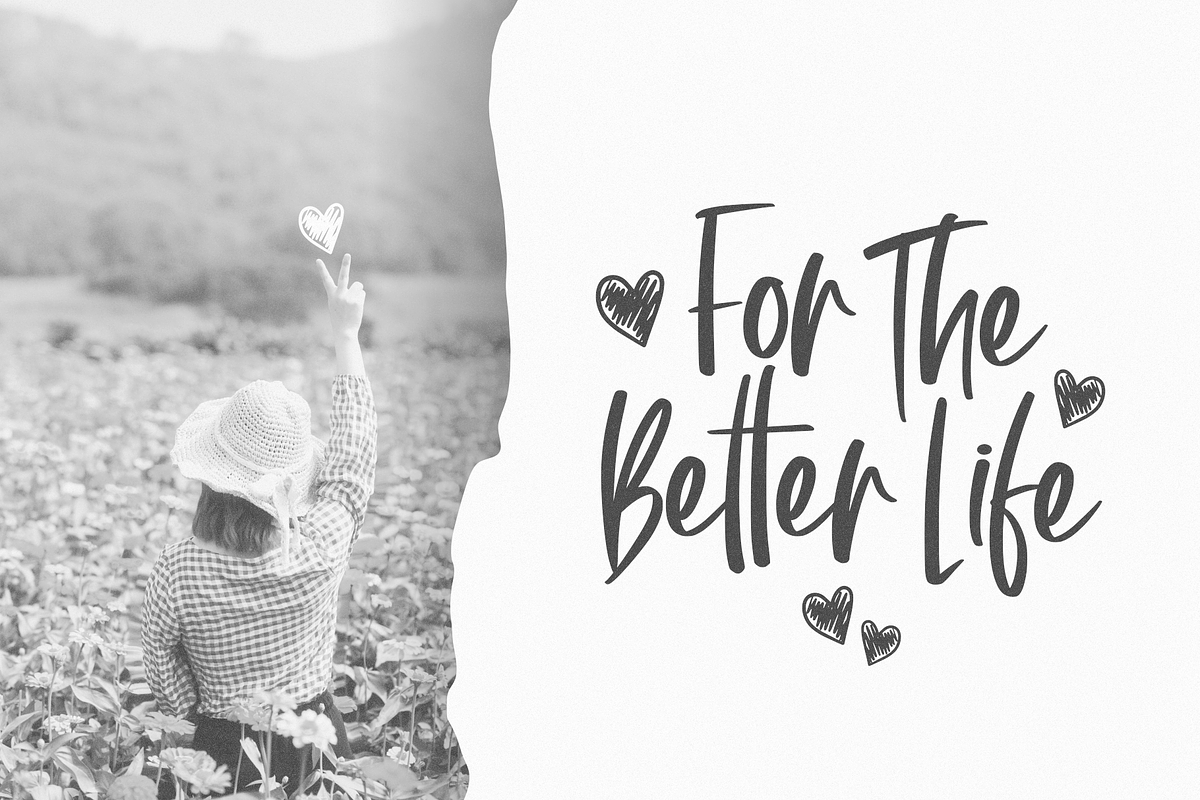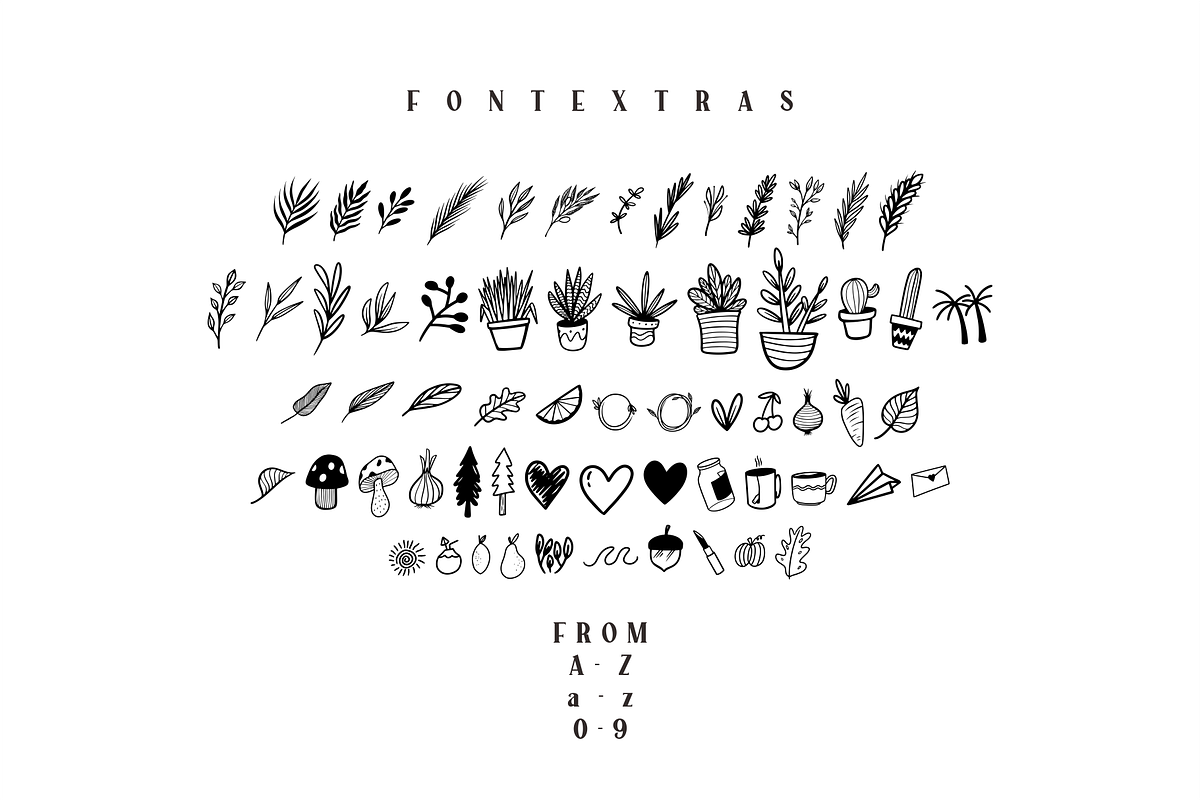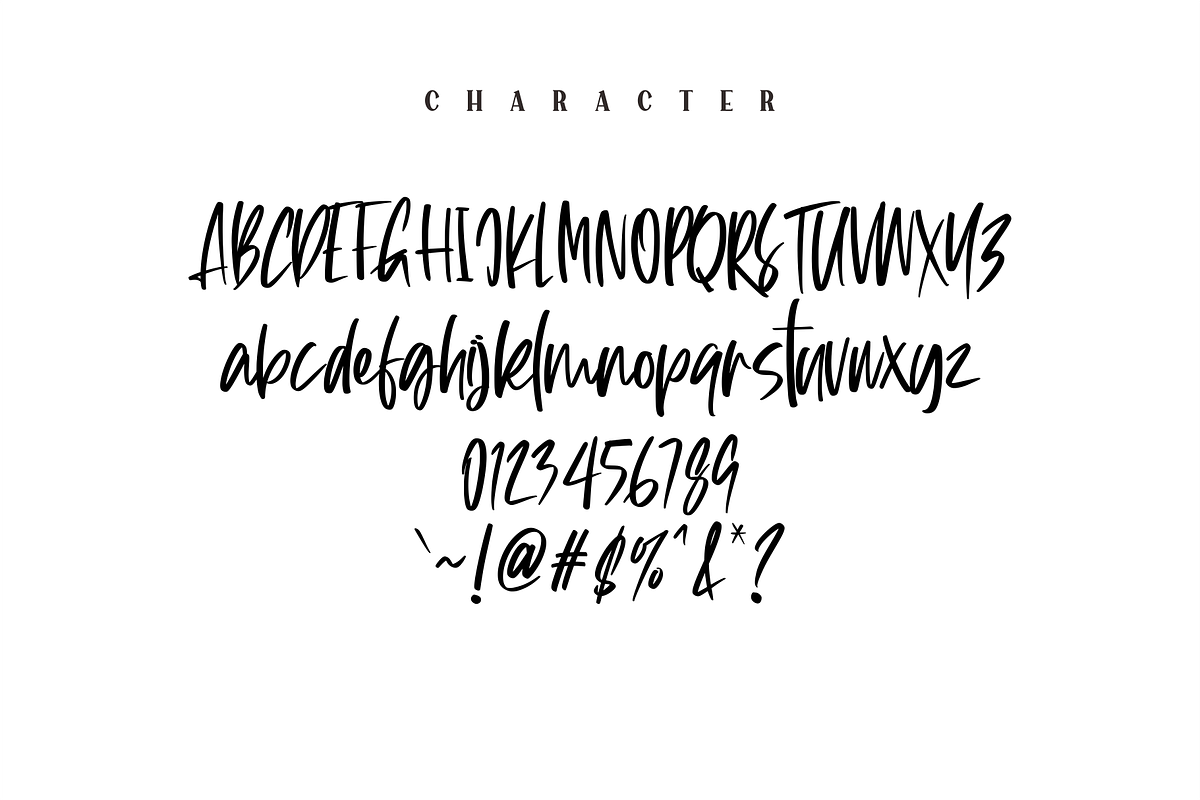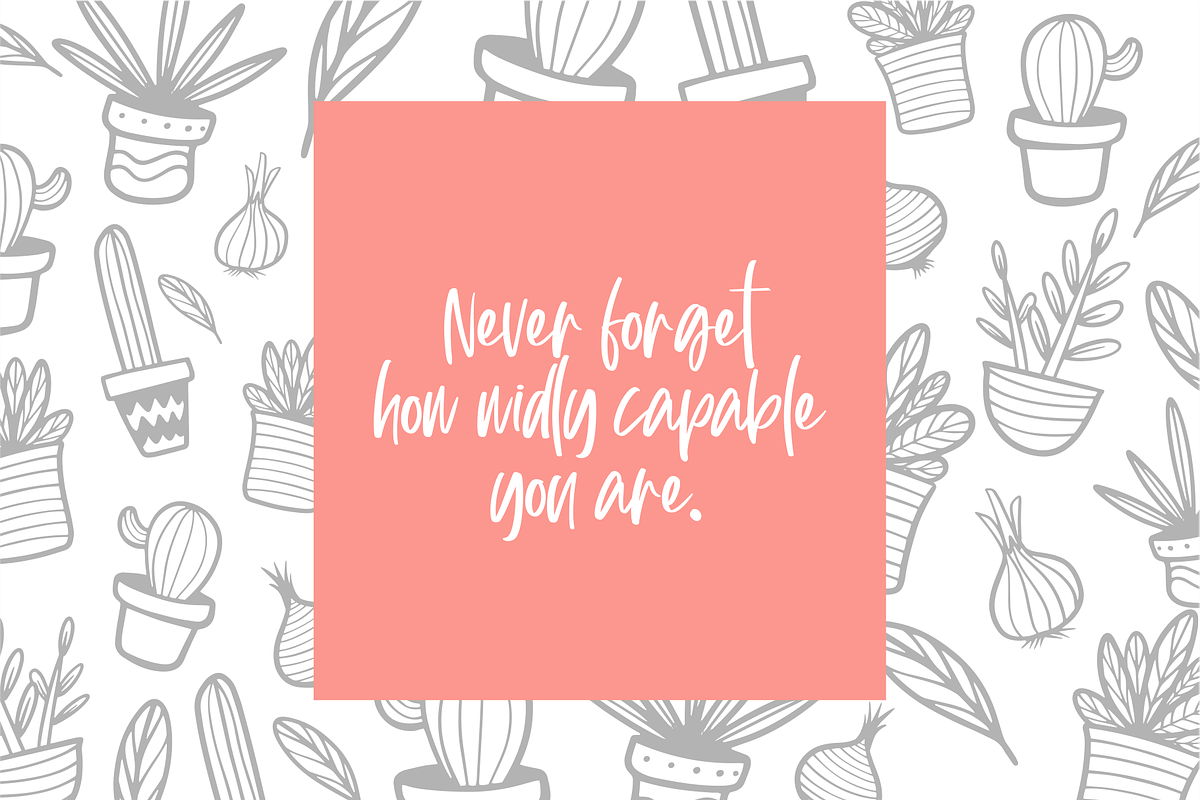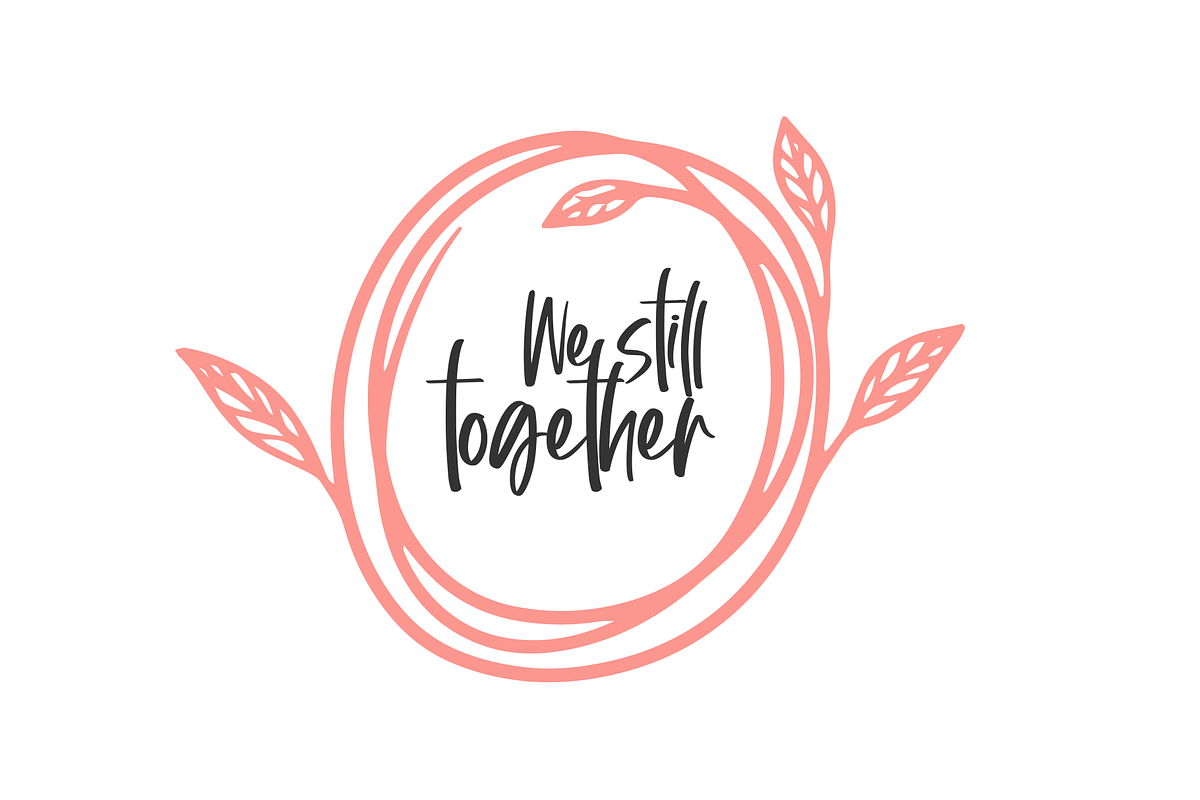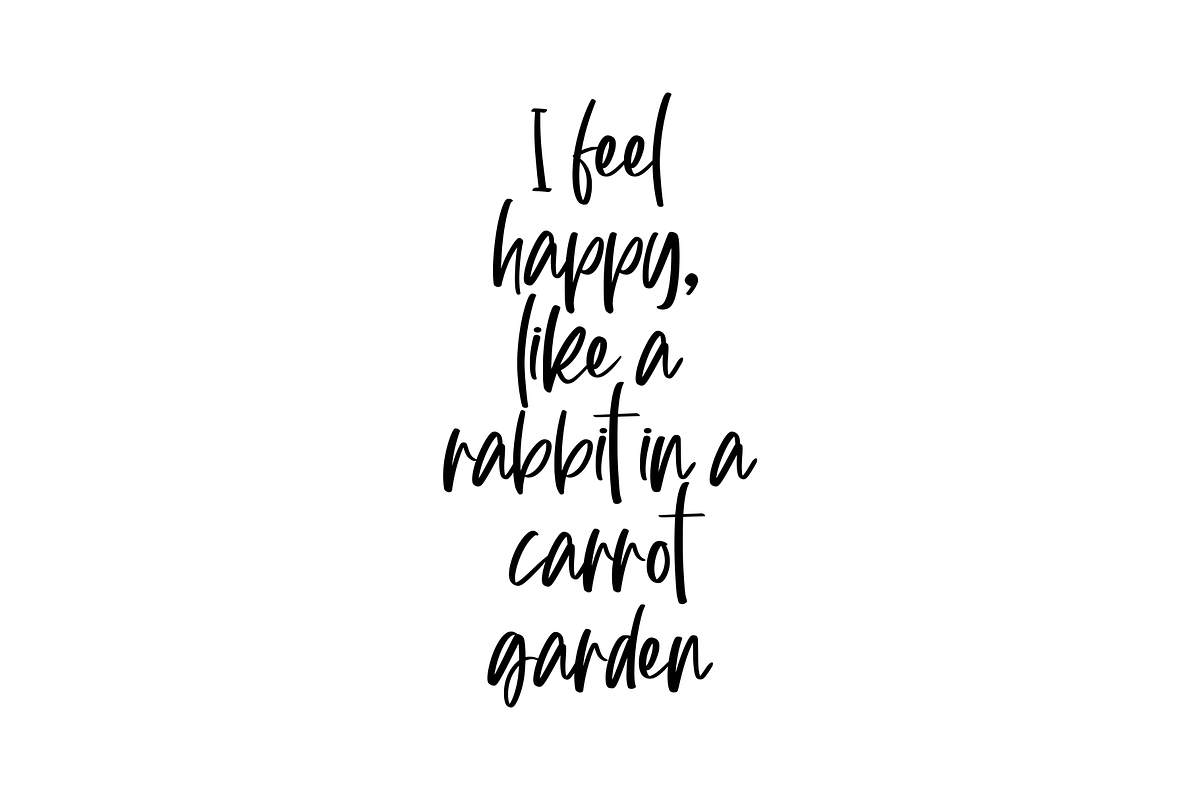
Gardenia + Extras font
Gardenia is font handwritten style, this font is suitable for logos, cover titles, posters, invitations and other design products. This font include extra gardenia doodle.
- Number,
- Uppercase & Lowercase
- Punctuation.